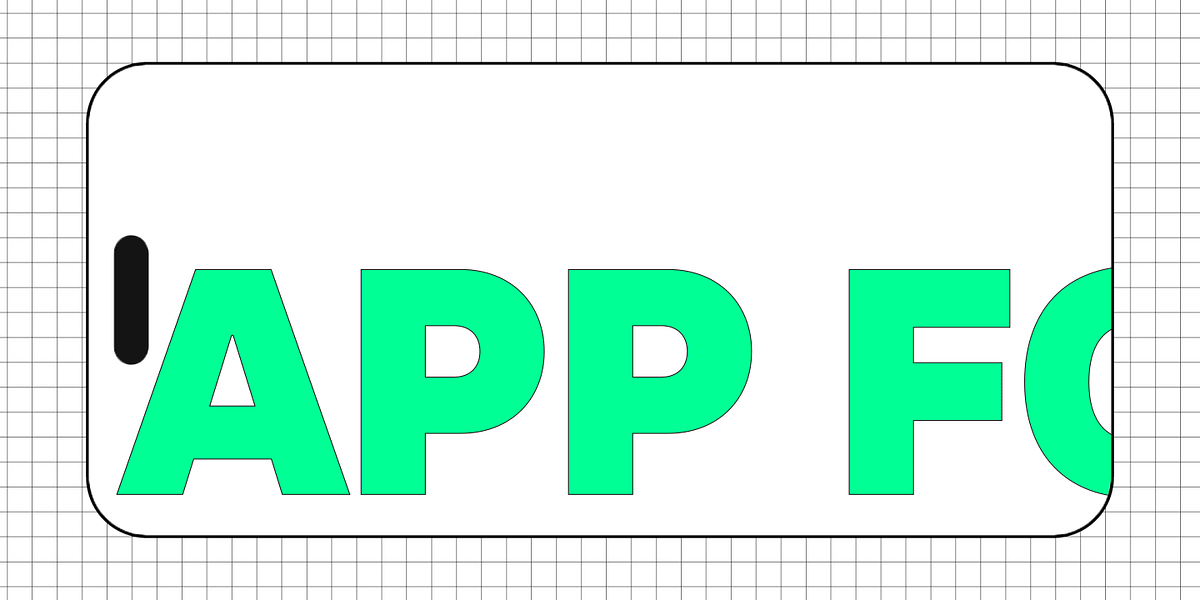
Best Font For Mobile Reading . Explore the best fonts for reading: A large new study of the best fonts for online reading is ultimately disappointing, because it doesn’t answer the most burning question: Droid sans was designed with an upright stress, open forms and a neutral, yet friendly appearance. What is the best font for mobile reading? What font should you use for your website? Choosing the right font is essential for readability and user experience on mobile devices. For mobile reading, fonts like roboto and open sans are excellent choices. Technical considerations are critical for font performance and consistency across platforms. Check out the typetype list of the best fonts for reading! Find out which font boasts the.
What font should you use for your website? Check out the typetype list of the best fonts for reading! A large new study of the best fonts for online reading is ultimately disappointing, because it doesn’t answer the most burning question: What is the best font for mobile reading? Choosing the right font is essential for readability and user experience on mobile devices. Explore the best fonts for reading: Technical considerations are critical for font performance and consistency across platforms. Find out which font boasts the. For mobile reading, fonts like roboto and open sans are excellent choices. Droid sans was designed with an upright stress, open forms and a neutral, yet friendly appearance.
Best Font For Mobile Reading  Find out which font boasts the. A large new study of the best fonts for online reading is ultimately disappointing, because it doesn’t answer the most burning question: What font should you use for your website? Explore the best fonts for reading: Check out the typetype list of the best fonts for reading! Find out which font boasts the. Choosing the right font is essential for readability and user experience on mobile devices. What is the best font for mobile reading? Droid sans was designed with an upright stress, open forms and a neutral, yet friendly appearance. Technical considerations are critical for font performance and consistency across platforms. For mobile reading, fonts like roboto and open sans are excellent choices.